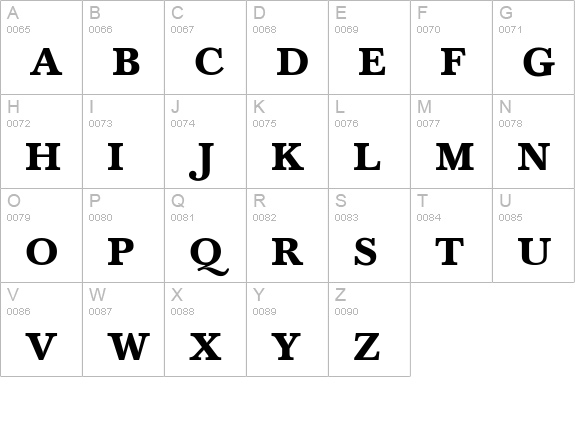
Bartholomew-Bold is a strong, high-contrast variant in the Bartholomew typeface family \xE2\x80\x94 well suited to headlines, attention-grabbing titles, and strong calls-to-action.
Bartholomew-Bold font is a modern and stylish typeface that exudes confidence and sophistication. With its bold and striking appearance, Bartholomew-Bold is the perfect choice for grabbing attention and making a statement in your designs. Whether you're creating posters, headlines, logos, or branding materials, this font will add a touch of elegance and flair. The best part about Bartholomew-Bold font is that it is available for free download at FontsMarket.com. This means you can easily access this premium font without any cost, making it a valuable addition to your font collection. Don't miss out on the opportunity to enhance your projects with the bold and impactful Bartholomew-Bold font!